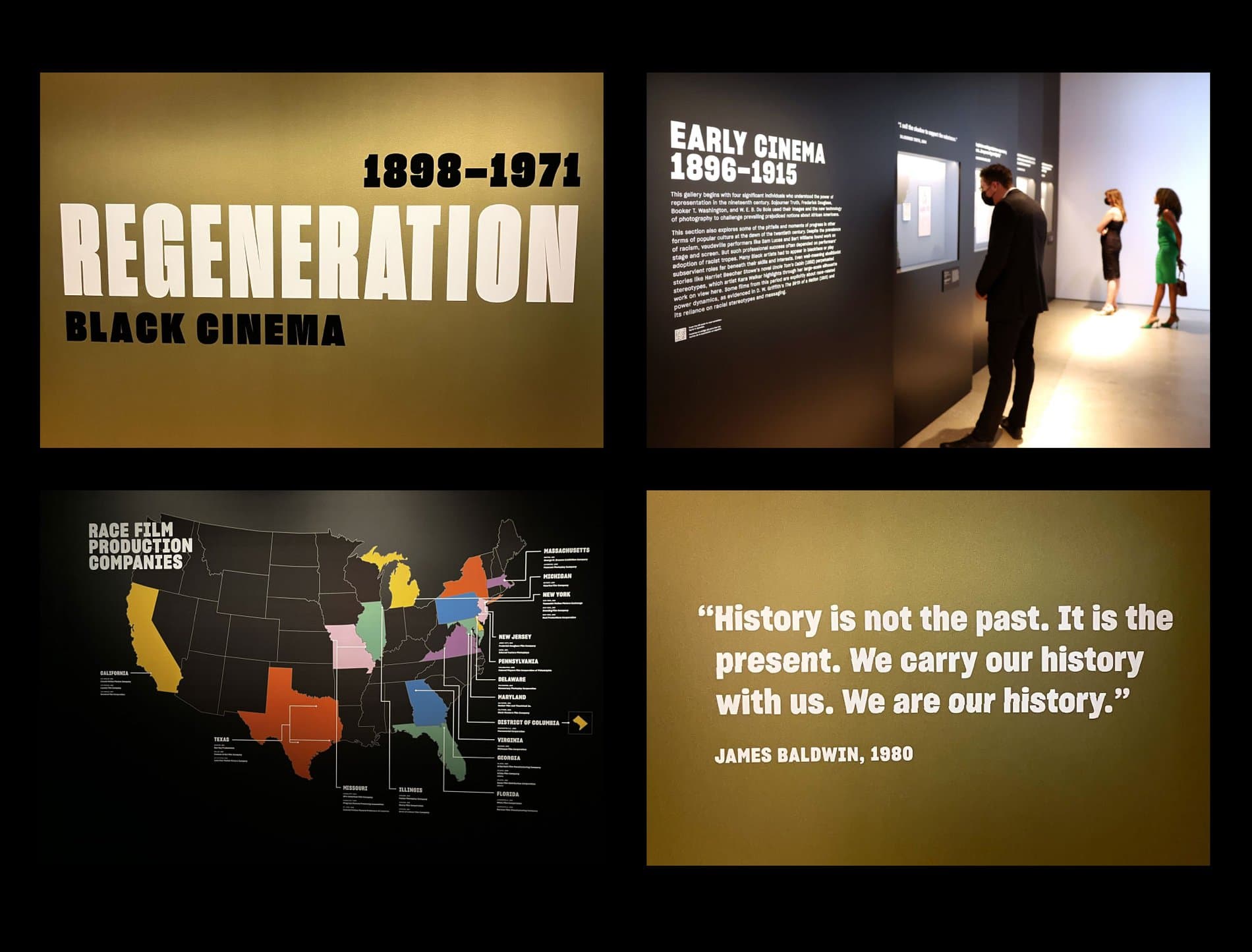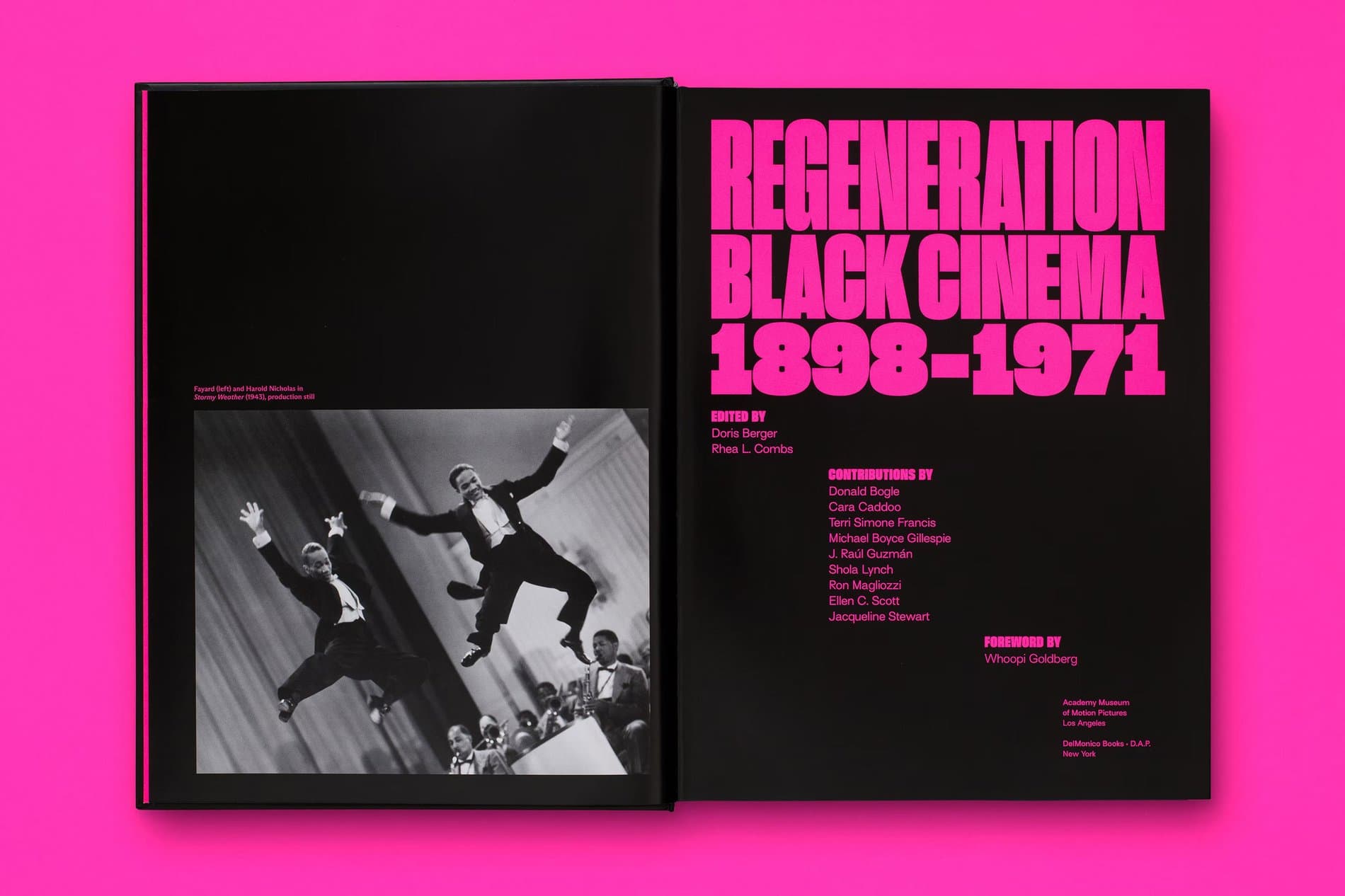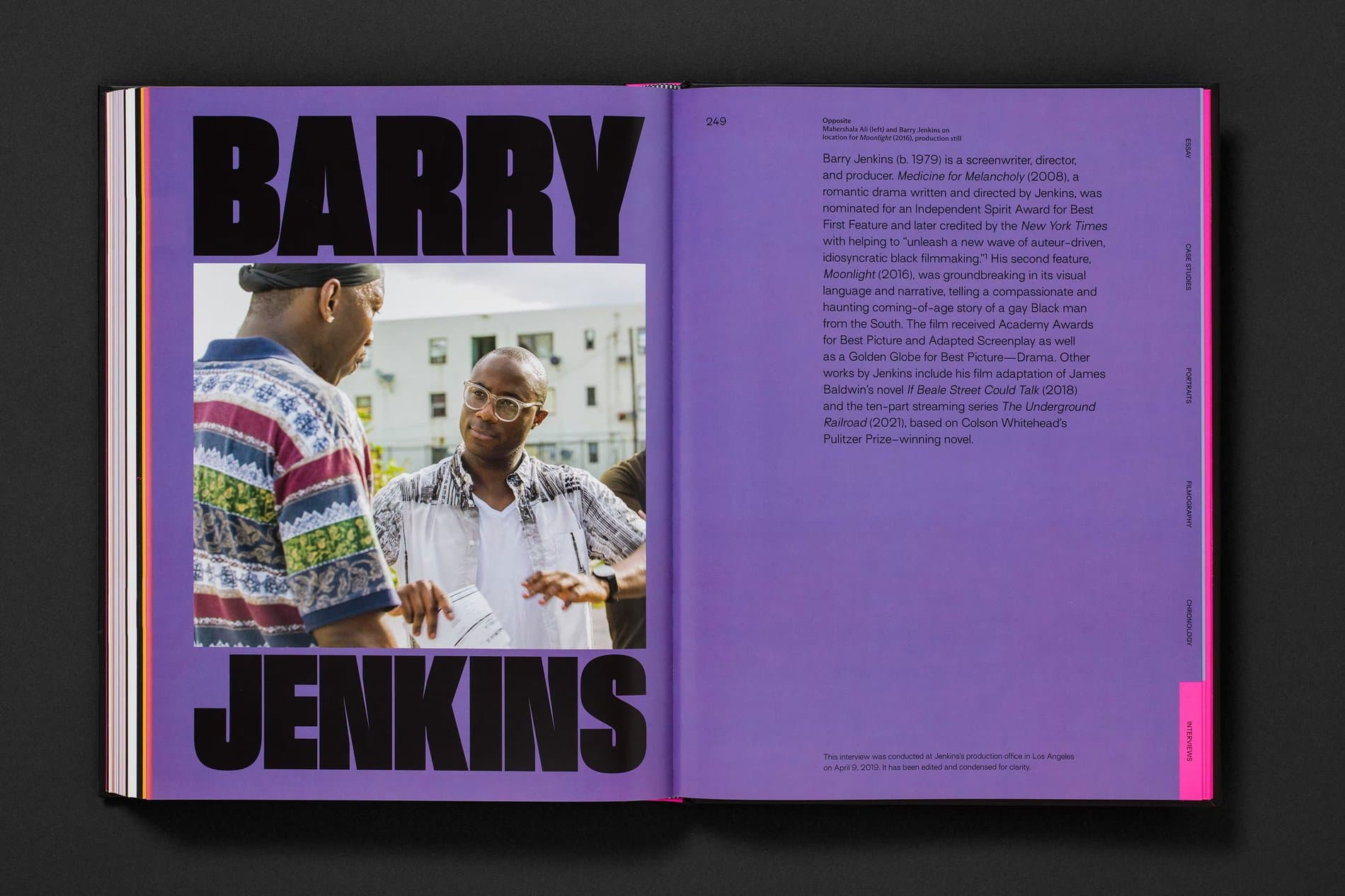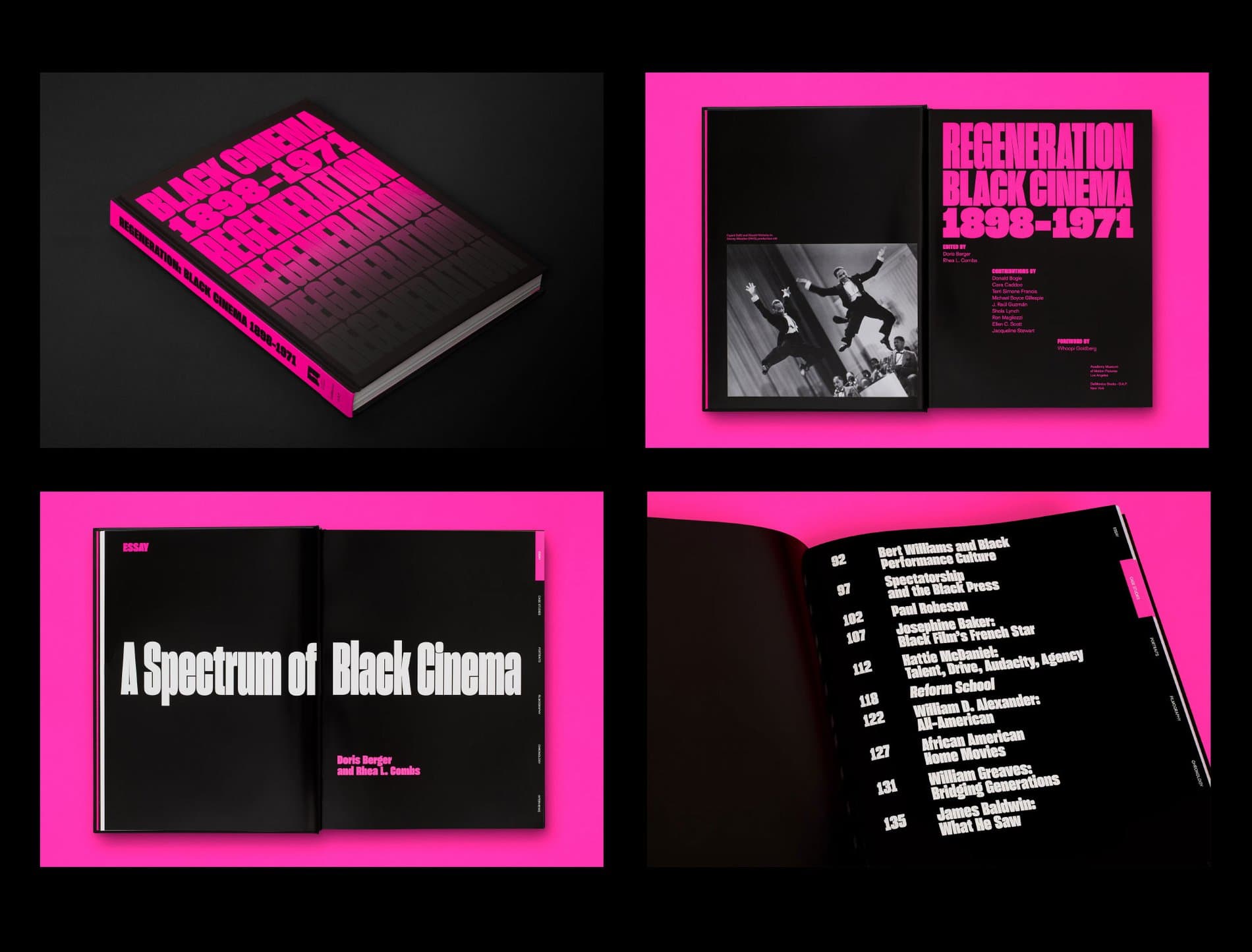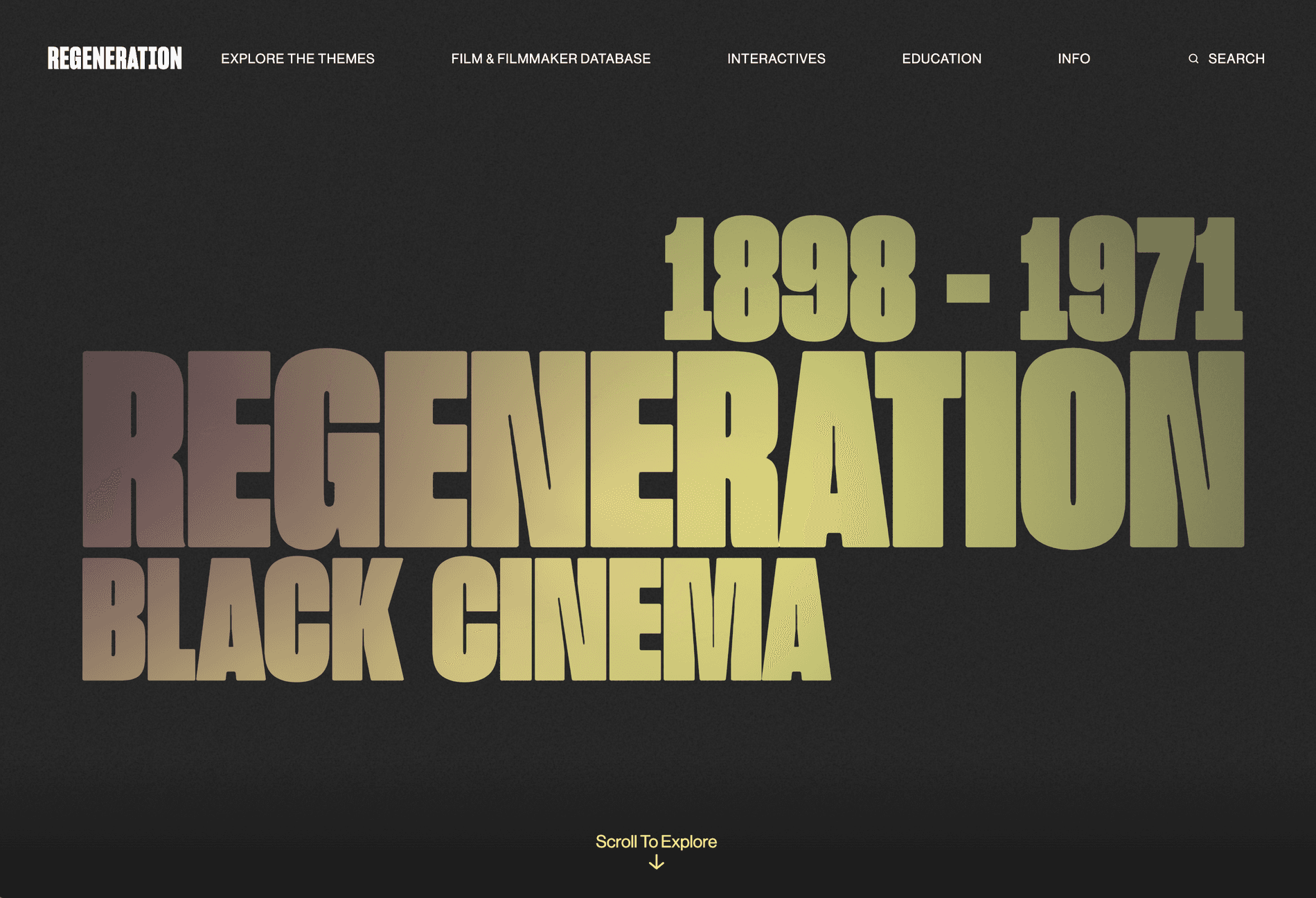
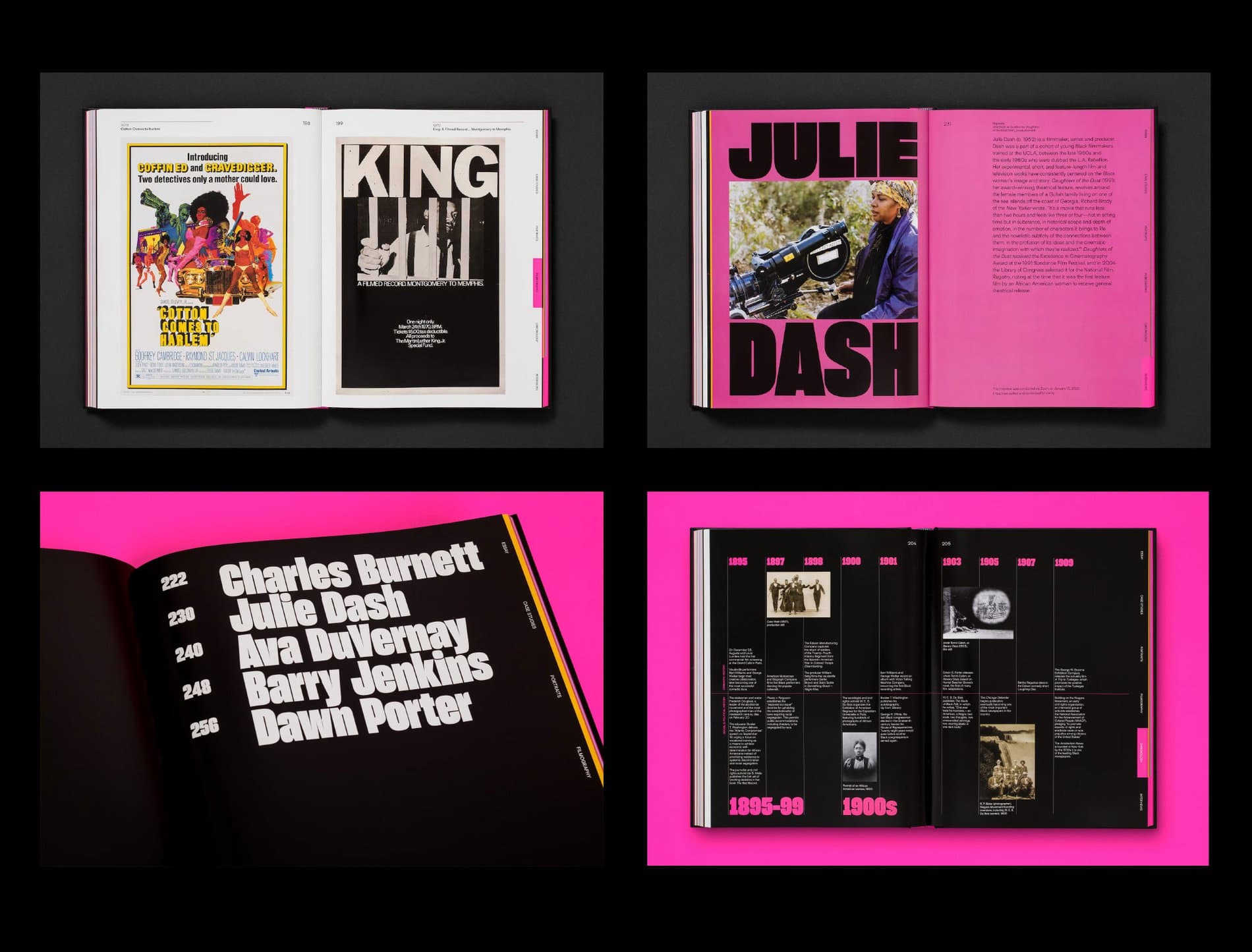
The Academy Museum of Motion Pictures partnered with Pentagram for the design of Regeneration: Black Cinema 1898–1971, which explores the rich history of Black participation in American cinema from its beginnings to just beyond the civil rights movement. Inspired by and named after an independent all-Black-cast movie from 1923, Regeneration seeks to revive lost or forgotten films, filmmakers, and performers for a contemporary audience. Sharp Grotesk takes center stage across the project's exhibition, companion book, and website.
The companion book’s design employs an eclectic approach to typography inspired by the eye-catching posters and their dramatic display type that drew audiences to the films, An ensemble of typefaces were chosen that hint at the period as well as the posters’ expressive lettering, most of which was originally hand-drawn. It makes perfect sense then that the lead role in the book is given to Sharp Grotesk. Beyond its sheer versatility and a range of widths that allows it to be everything from powerful to whimsical, Sharp Grotesk itself began as Lucas Sharp’s hand-drawn lettering for a poster. The book cover repeats the title in strong upper-case type (set in Sharp Grotesk Black), projecting out of the dark like a film in the theater and suggesting an evolution into a bright future.